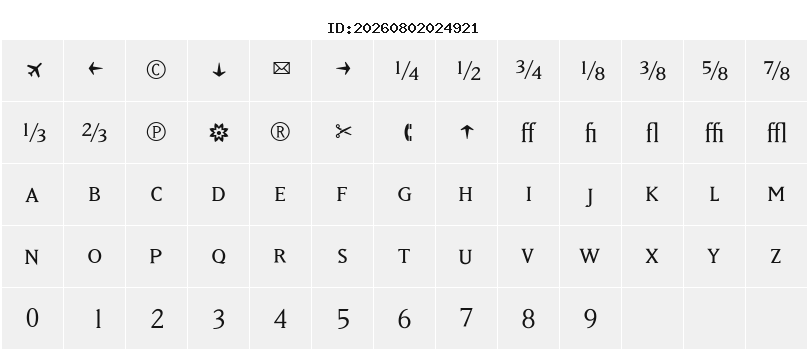
• Character Count: 217
MatrixFractions-Book.ttf is a modern, elegant sans-serif font designed for ultimate readability and visual harmony. Perfect for branding, headlines, web design, and print materials.